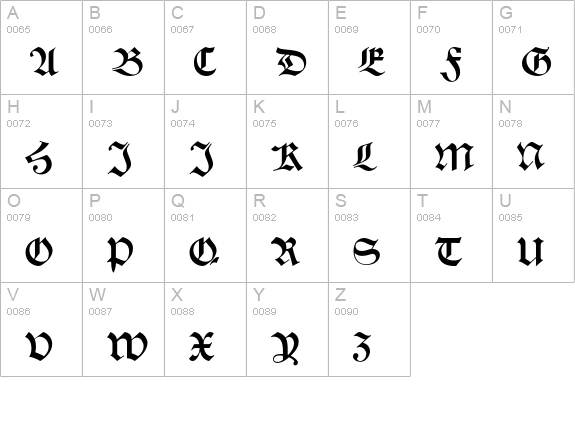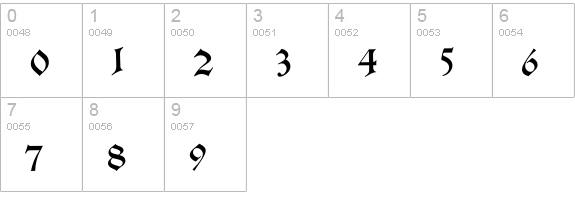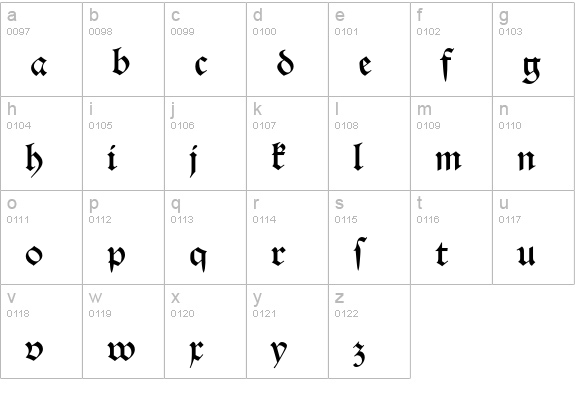
Alte Schwabacher D Font Details
Alte Schwabacher D font is a classic and elegant typeface that exudes a sense of traditional charm and sophistication. Its distinctive old-style blackletter design brings a touch of vintage flair to any project, making it perfect for adding a timeless and refined look to your designs. This font features beautifully crafted letterforms with intricate details and ornate flourishes that give it a unique and eye-catching appeal. Whether you're working on invitations, signage, branding, or any other creative project, Alte Schwabacher D font will surely make a statement and leave a lasting impression. Best of all, this exquisite font is free to download at FontsMarket.com, making it easily accessible for all your design needs. Don't miss out on the opportunity to enhance your projects with the timeless beauty of Alte Schwabacher D font. Download it today and elevate your designs to a whole new level of sophistication and style.